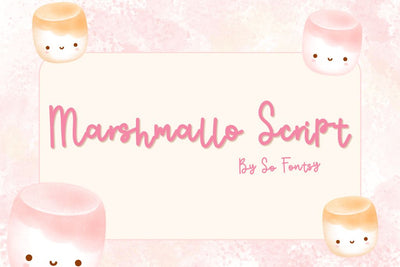
Marshmallo Script is a soft, bouncy monoline handwriting font with rounded strokes and a playful lift on every letter. It was drawn in house at So Fontsy for all the sweet stuff: kids shirts, bakery labels, planner pages, birthday invitations and anything that needs to feel warm and a little cozy.
Pair it with a clean sans serif for headings that still feel handmade, or let it carry a design on its own at a big size.